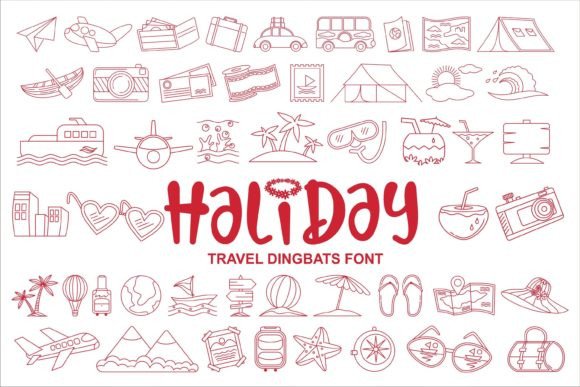
Haliday Font
Unleash the charm of Haliday Font, the epitome of playful creativity in the realm of dingbats fonts. A brainchild of the esteemed edywiyonopp, this hand-drawn font, born from the essence of holidays and wanderlust, is a delightful companion for all your creative endeavors.
With its whimsical curves and distinctive flair, Haliday Font adds a captivating touch to your designs, turning ordinary words into enchanting stories. Let your imagination soar as you craft enchanting travel-inspired visuals, evoking a sense of adventure and wanderlust in the hearts of your audience.
This font is the perfect accessory for travel-themed designs, adding a lighthearted and playful touch to business cards, invitations, social media posts, and promotional materials. Its versatility extends beyond the digital realm, making it a charming choice for handwritten notes, personalized cards, and DIY projects.
Haliday Font captivates with its quirky personality, making it an ideal choice for those seeking a font that sparks joy and ignites creativity. It effortlessly complements projects with a lighthearted vibe, adding a touch of whimsy to everything it adorns.
Embrace the allure of Haliday Font and embark on a creative journey filled with charm, playfulness, and endless possibilities. Elevate your designs to new heights, captivating your audience with creations that exude warmth, wit, and a touch of magic.